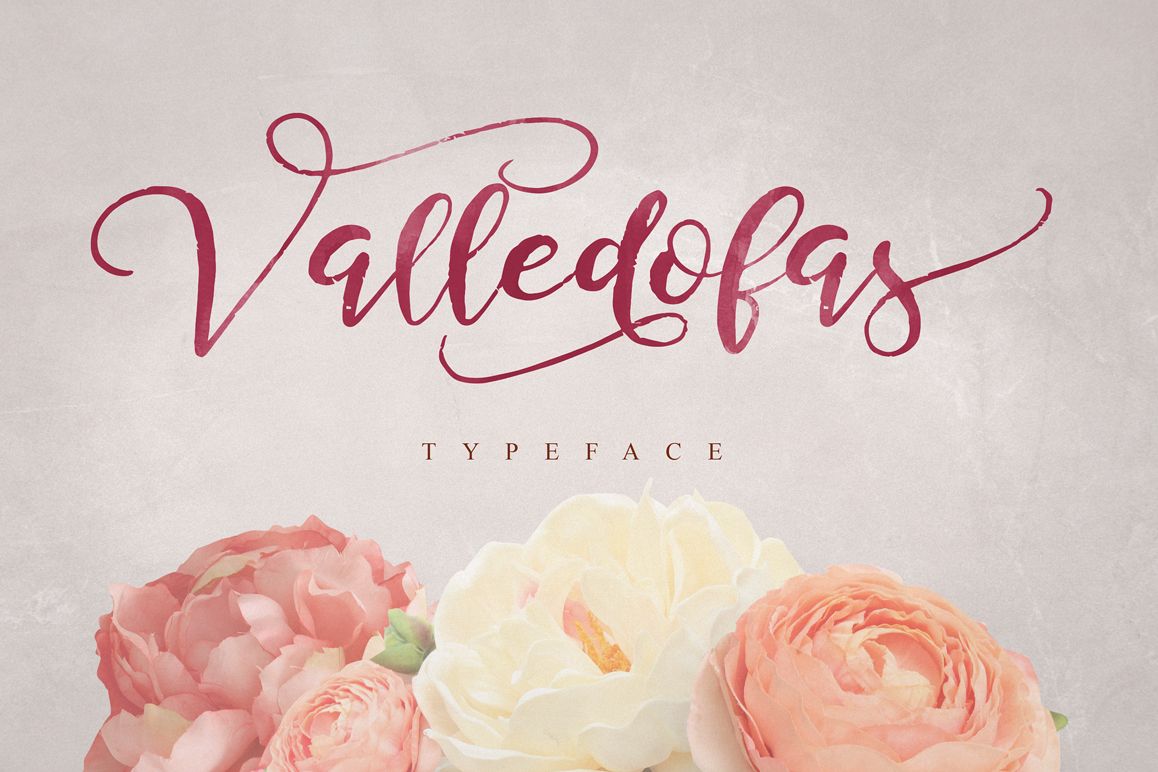
Valledofas Typeface
Valledofas second
Valledofas
introducing Valledofas Typeface modern script typeface, using style hand made with brushing. Get a Valledofas Second Typeface ( bonus ) using handmade sans serif style. Valledofas Typeface a beautiful for wedding card design, logotype, website header, Valentines day design, fashion design and any more.
• Character Set A-Z
• Numerals &Punctuations (OpenType Standard)
• Accents (Multilingual characters)
• Contextual Alternates
• SS01
• SS02